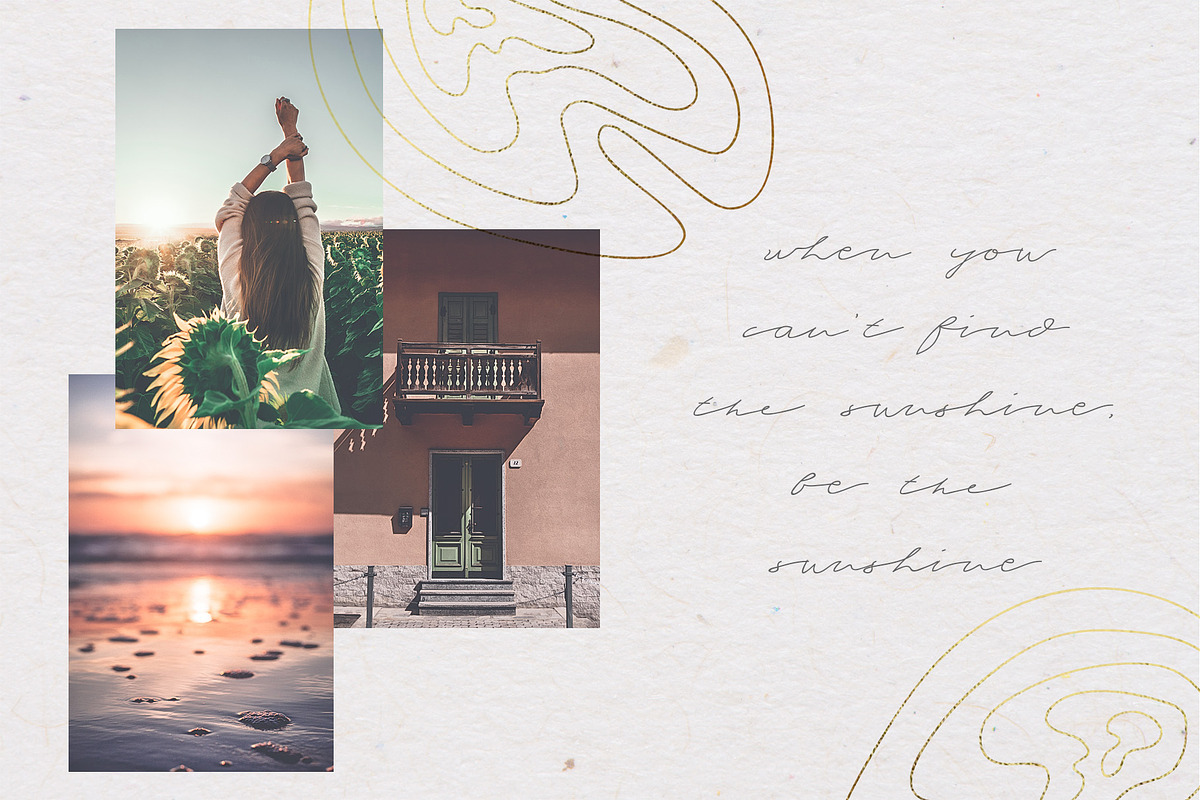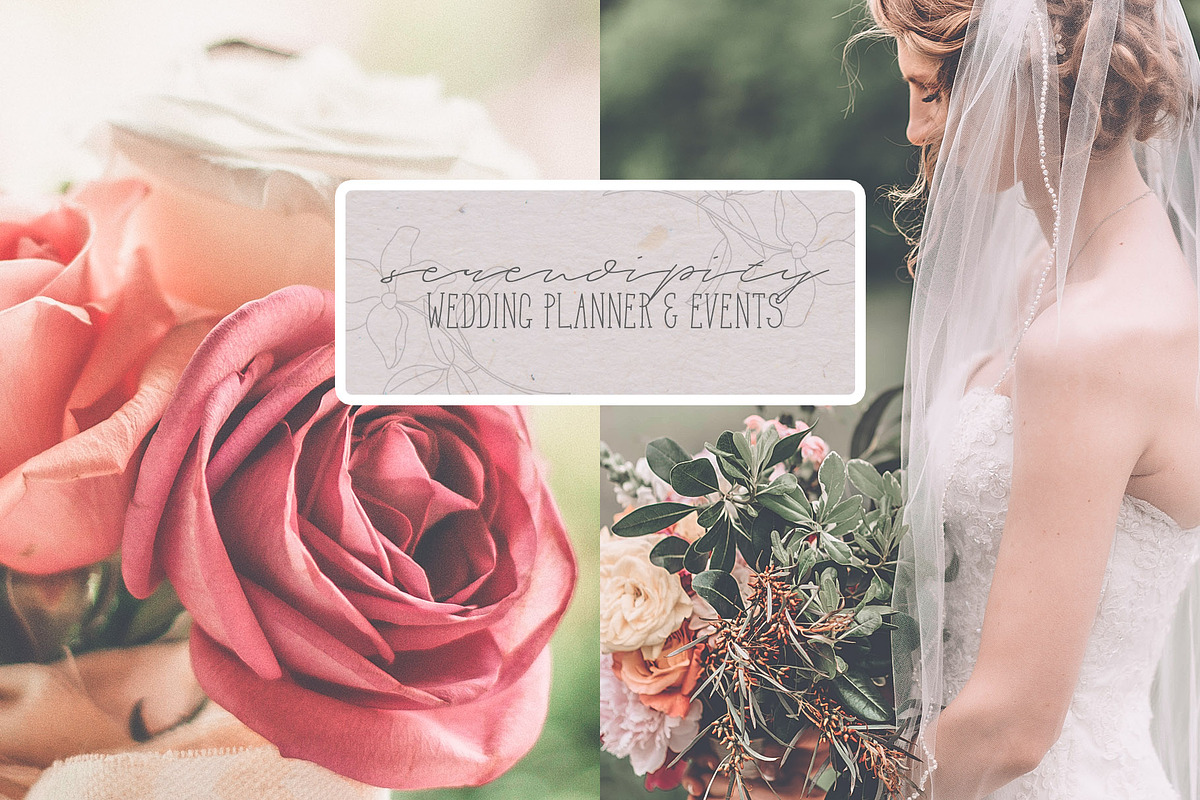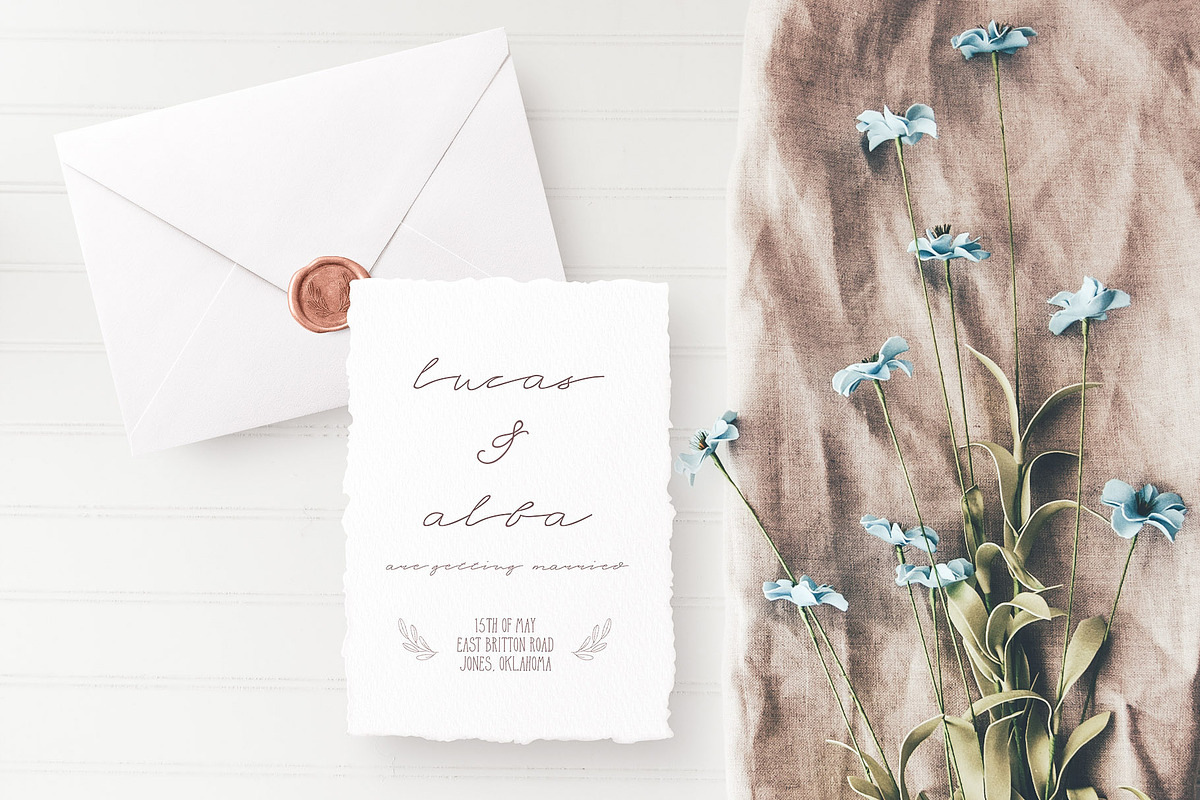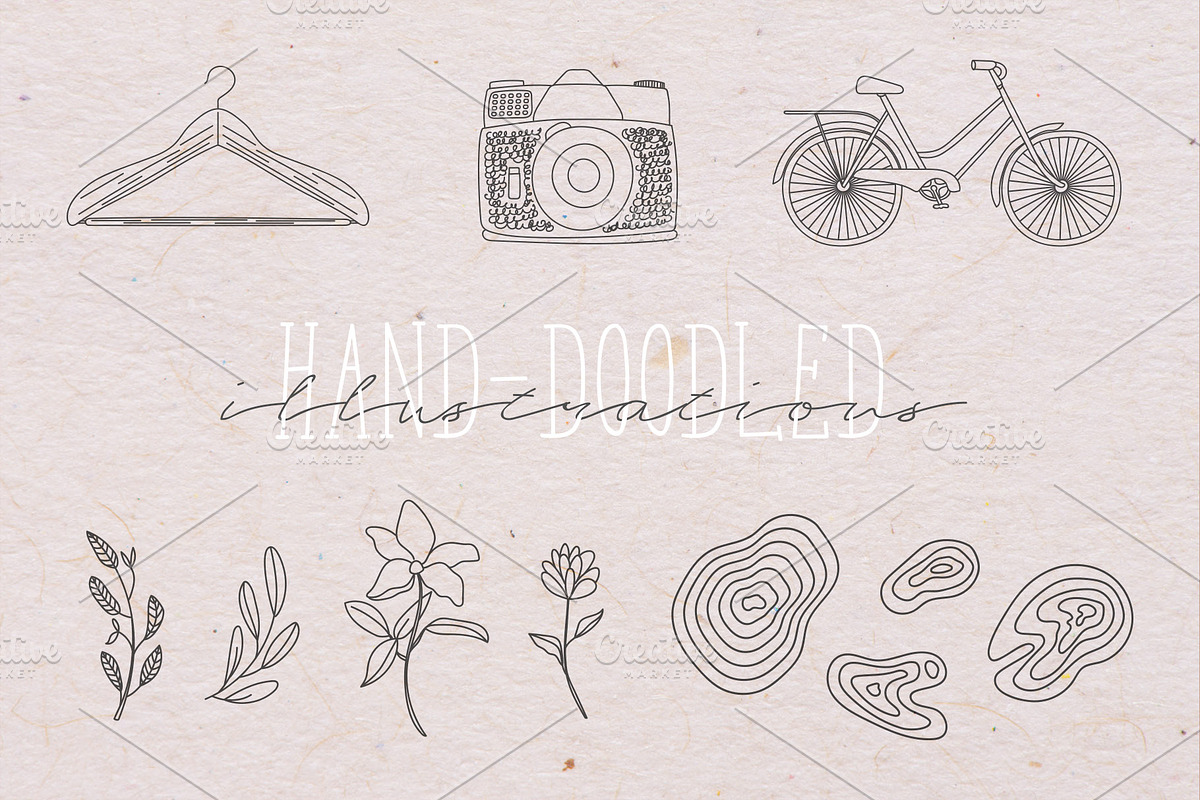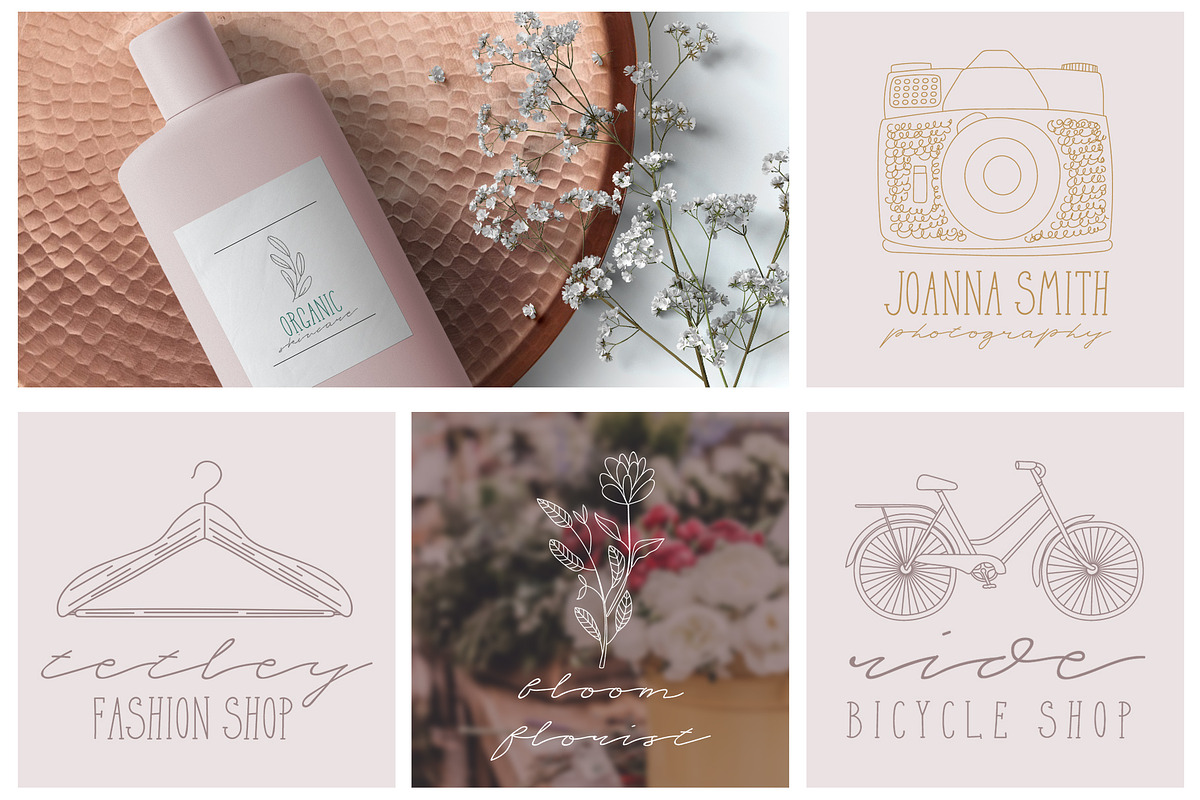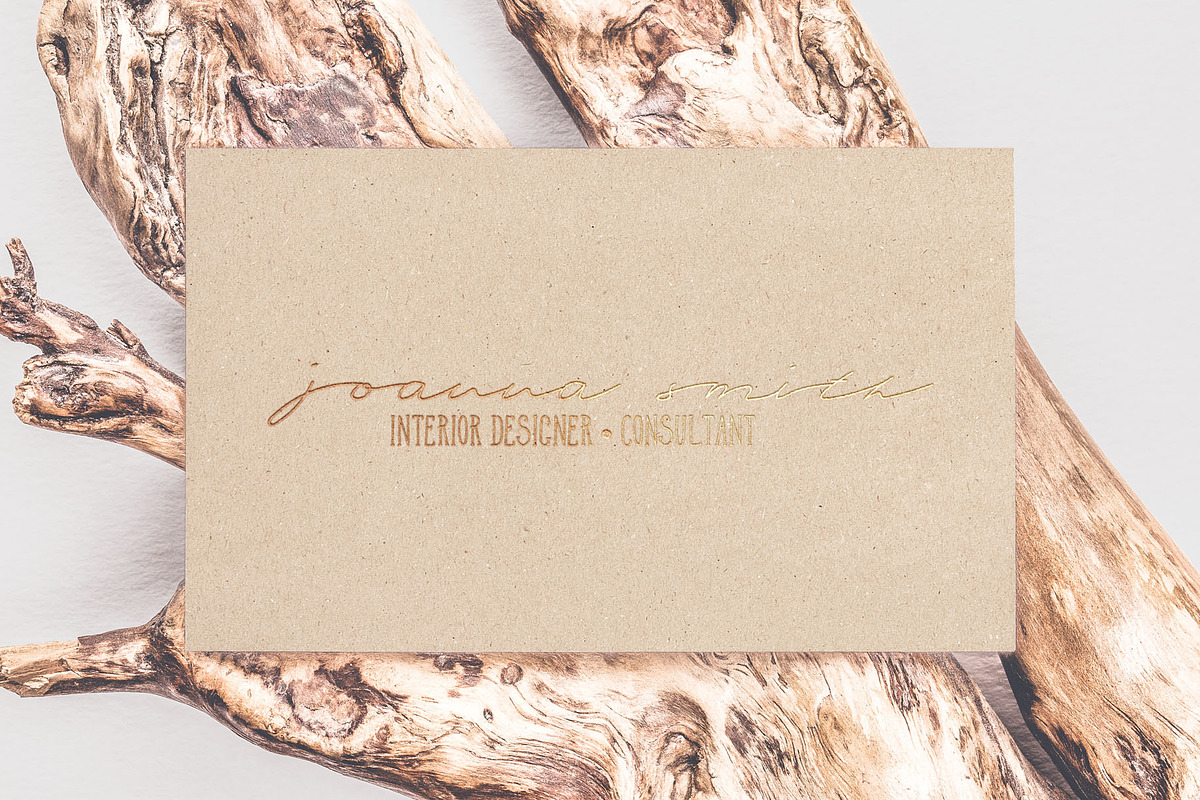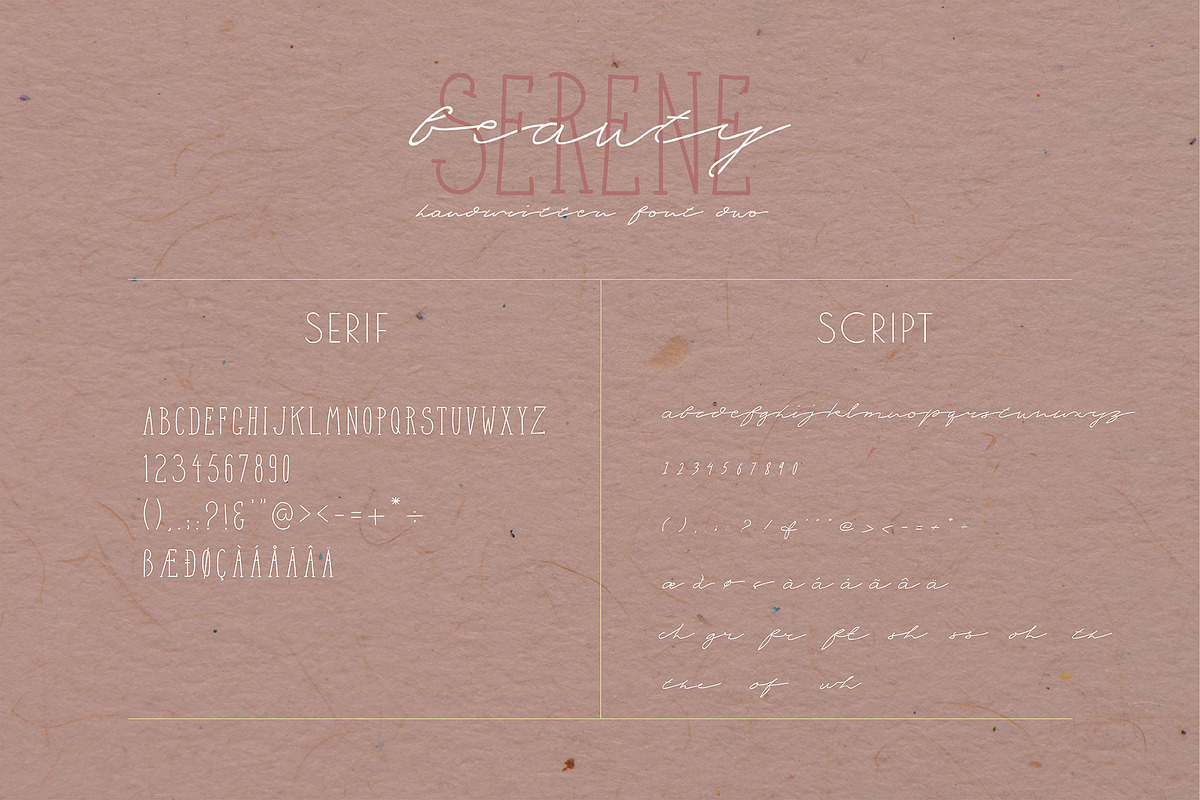
Serene Beauty Handwritten Font Duo
Serene Beauty is a delicate handwritten font duo that includes a playful serif and signature script. Open type features script ligature, basic multilingual, and bonus hand-drawn doodles ready to be used together for your next design!
- Two fonts that were made to go together. But equally beautiful standalone.
- Features:
- Uppercase serif with punctuation, numbers. (OTF, WOFF)
- Lowercase signature/script with ligatures, punctuation, numbers. (OTF, WOFF)
- Serene Regular
- Serene Script